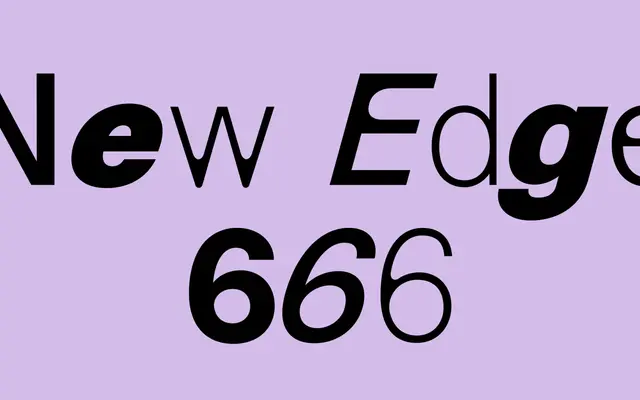
New Edge 666
Charlotte Rohde · Charlotte Rohde
Originally a custom face for Berlin feminist project space soft power, it has since been adapted for institutions including Haus der Kulturen der Welt and the dating app FEELD.
Developed in collaboration with Melissa Lücking, this geometric sans spans 21 styles across five weights, each available in upright, slanted, rounded and rounded-slanted cuts. The systematic multiplication of variants gives designers granular control over tone, from the sparest Ultra Light to a heavy Ultra Bold, with the rounded alternates softening its angular geometry. Its institutional clients suggest a typeface that can hold both sharp political identity work and more commercial applications.
A geometric sans with rounded and slanted variants throughout; the systematic alternates and angular construction place it firmly in the geometric sans tradition with a distinctly experimental edge.